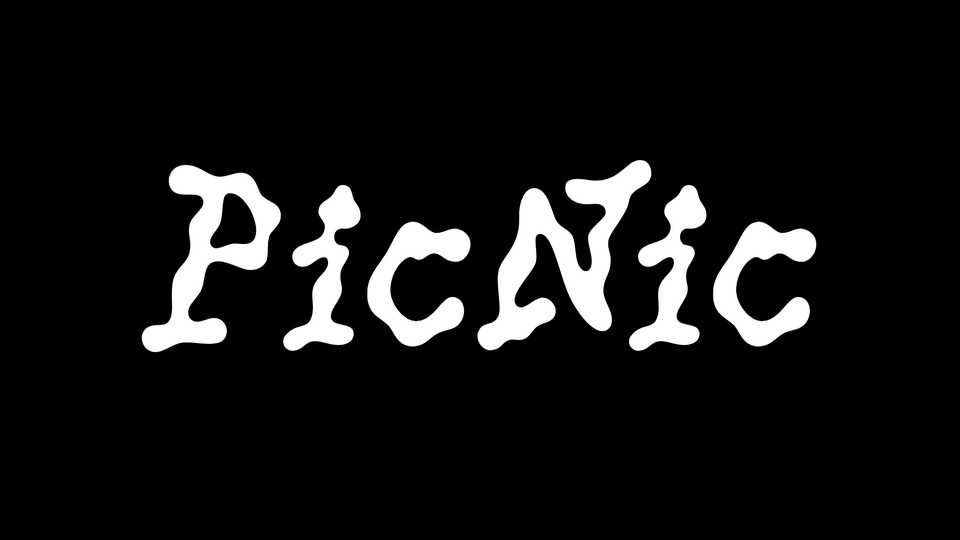
Download PicNic font, an organic typeface inhabiting a cloud of contextual ligatures and inclusive ligatures. PicNic typeface will suit for all wild, poetic and bucolic explorers for their most adventurous excursions.
Designer: Marielle Nils